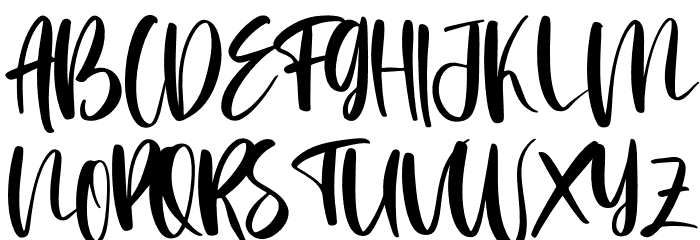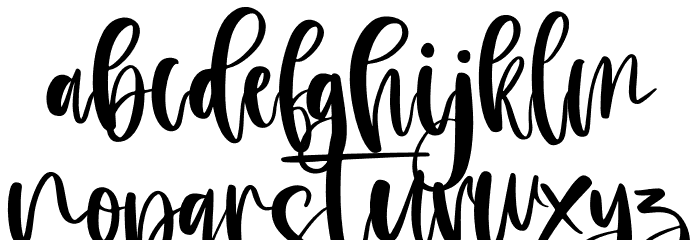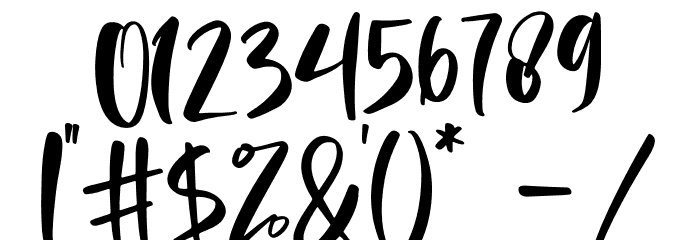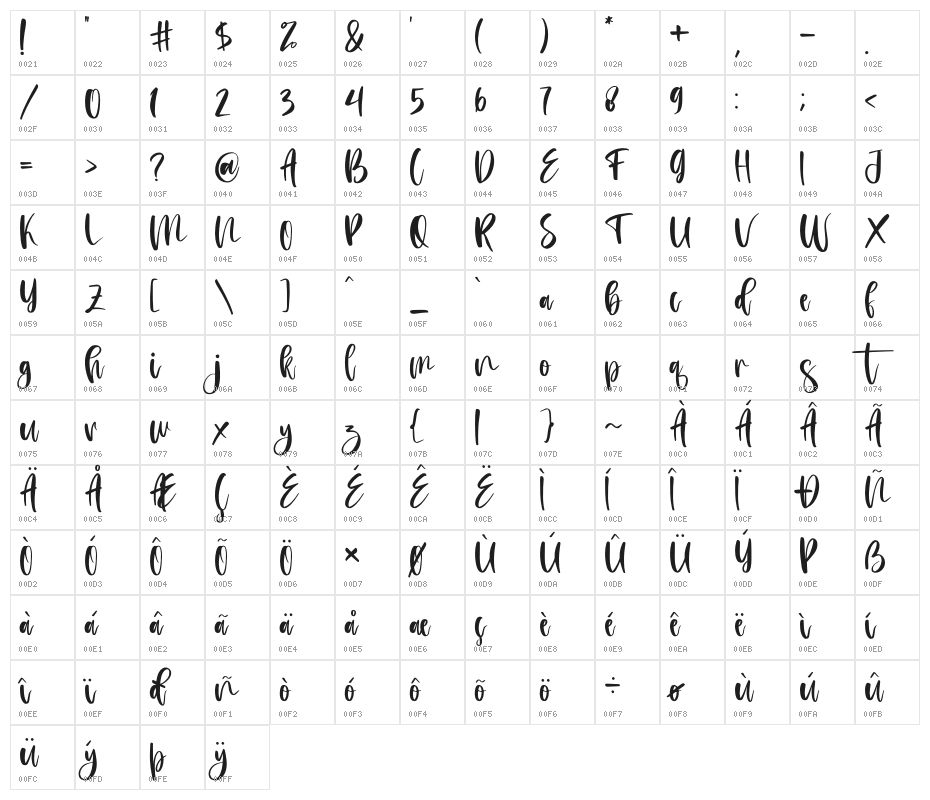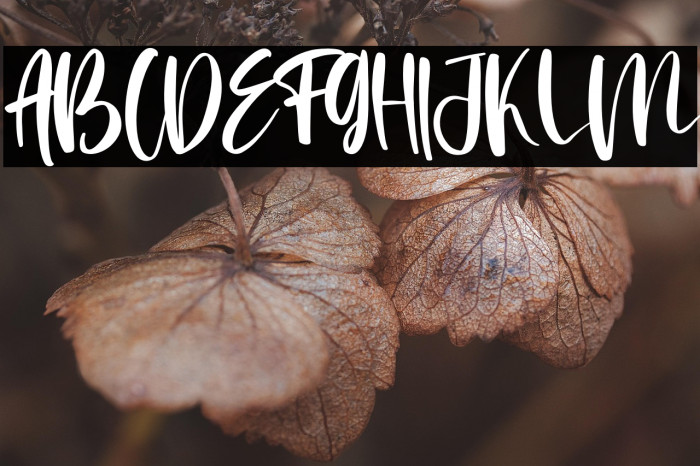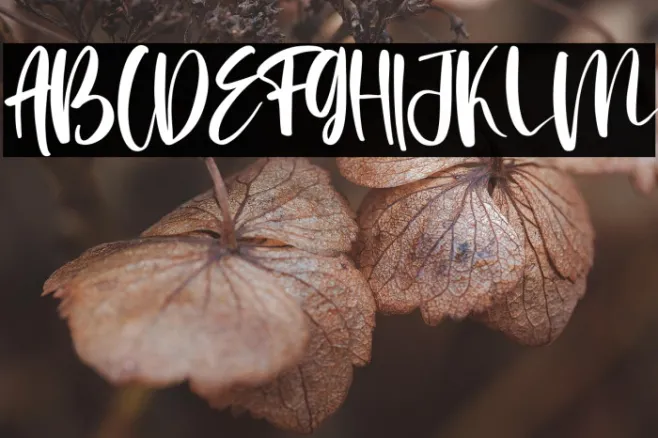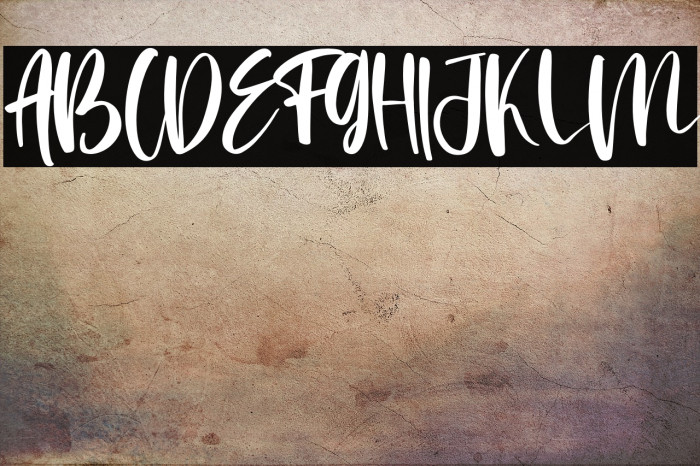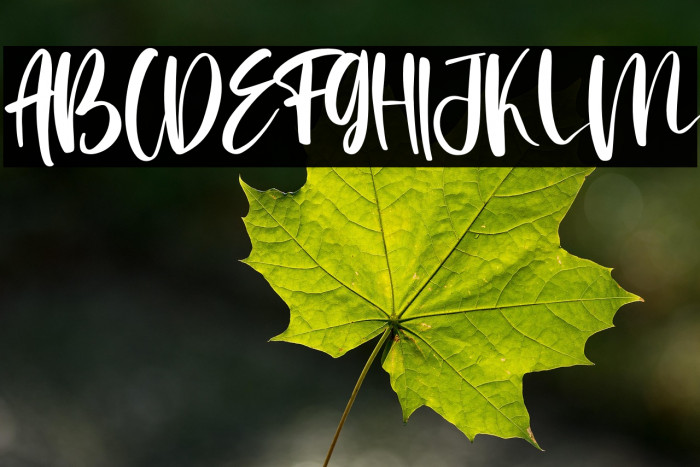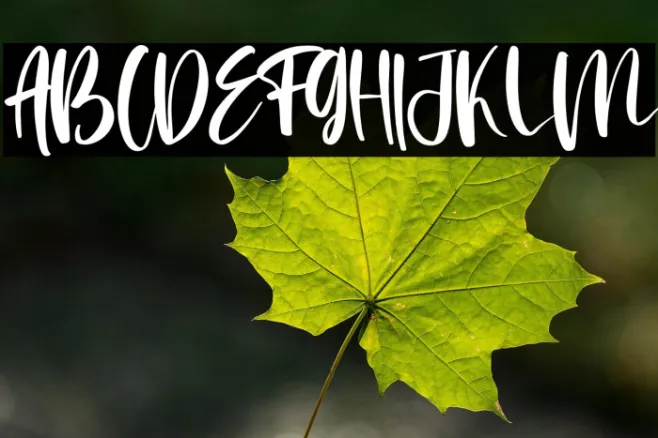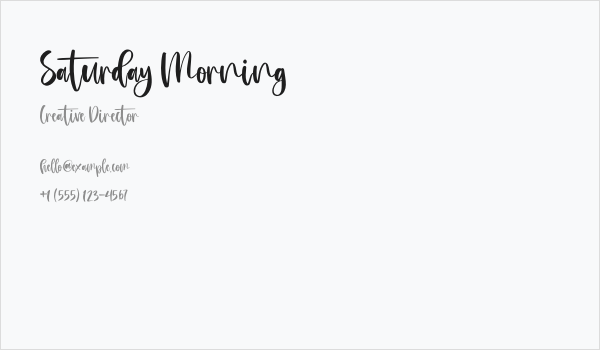
Saturday Morning Font
This font features a lively and energetic handwritten style, characterized by its bold and flowing script. The letters are crafted with a sense of spontaneity and flair, giving it a personal and informal touch. The uppercase and lowercase letters are well-balanced, with a consistent stroke width that maintains readability while adding a playful aesthetic. The numbers and special characters follow the same dynamic style, making them suitable for a variety of creative applications. The overall appearance is both modern and artistic, perfect for projects that require a personal and engaging look.
A bold, energetic handwritten script with a playful and modern aesthetic.
- Font: Saturday Morning
- Proposed Projects: Ideal for greeting cards, invitations, branding, social media graphics, and creative posters.
- Category: Handwritten